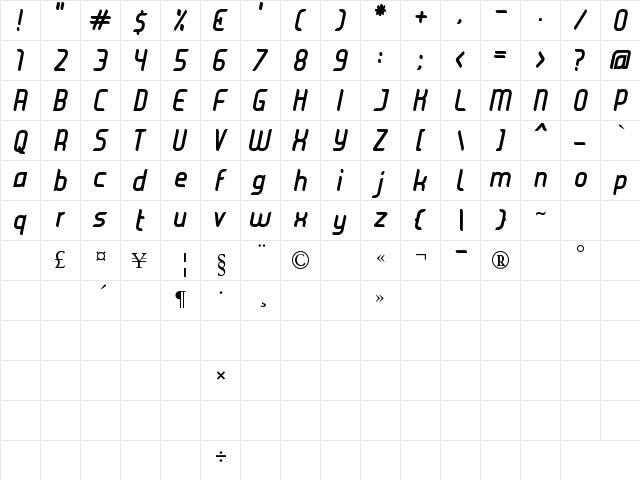
JUICE Bold Italic Regular
| Designer | Dhany Arliyanti |
Design Context for JUICE Bold Italic Typeface
JUICE Bold Italic takes a measured approach to typography — its balanced proportions and neutral character make it a reliable workhorse for both digital and print work. Its italic angle brings a sense of urgency and motion to the letterforms. Its bold stroke weight gives it real presence on the page.
Pro Tip: Use JUICE Bold Italic for emphasis, pull quotes, and subheadings where its slanted energy can add rhythm to the layout.